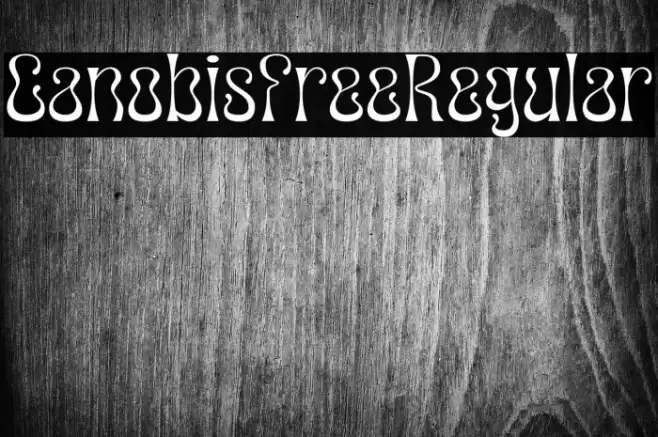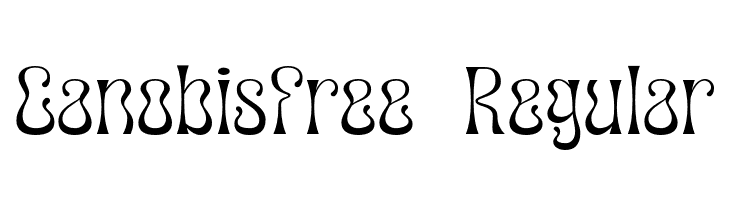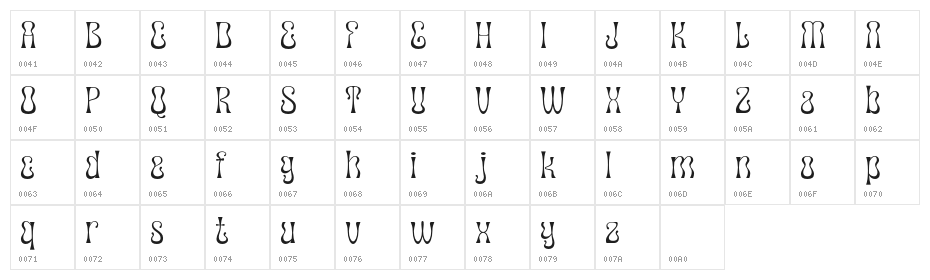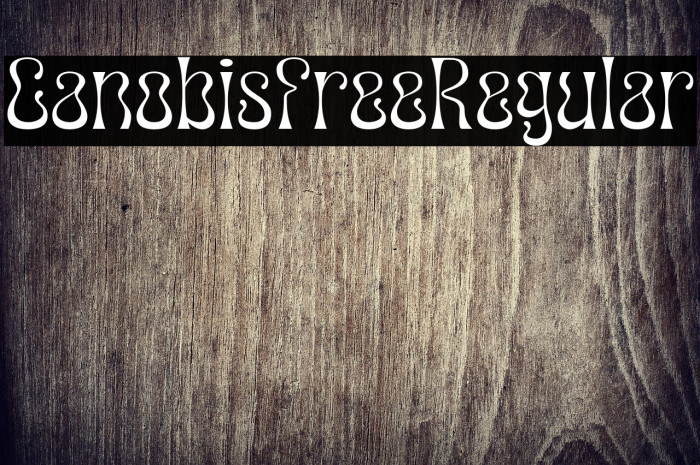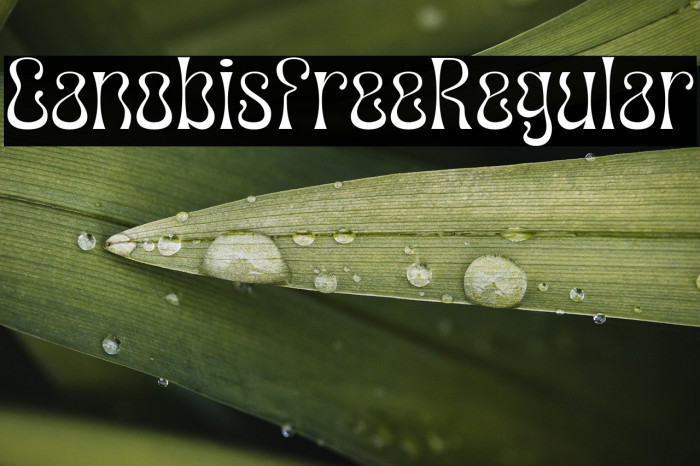
CanobisFree-Regular Font
CanobisFree-Regular Description
This font exhibits a unique and artistic style, characterized by its bold and decorative appearance. The letters are crafted with a playful and whimsical flair, featuring exaggerated curves and varying stroke widths that create a dynamic visual rhythm. The uppercase letters are particularly striking, with their bold presence and intricate detailing. The lowercase letters maintain the same decorative style, offering a cohesive look across the alphabet. The numbers and special characters are equally stylized, ensuring consistency throughout the font. This font's distinctive design makes it ideal for creative and eye-catching projects.
A bold, decorative font with playful curves and varying stroke widths from Uncategorized fonts.
- Proposed Projects: Ideal for posters, logos, branding, and any project requiring a bold, artistic touch.
- Contrast: High
- Overall Style: Decorative
- Use Case: Logos, Headlines, Posters